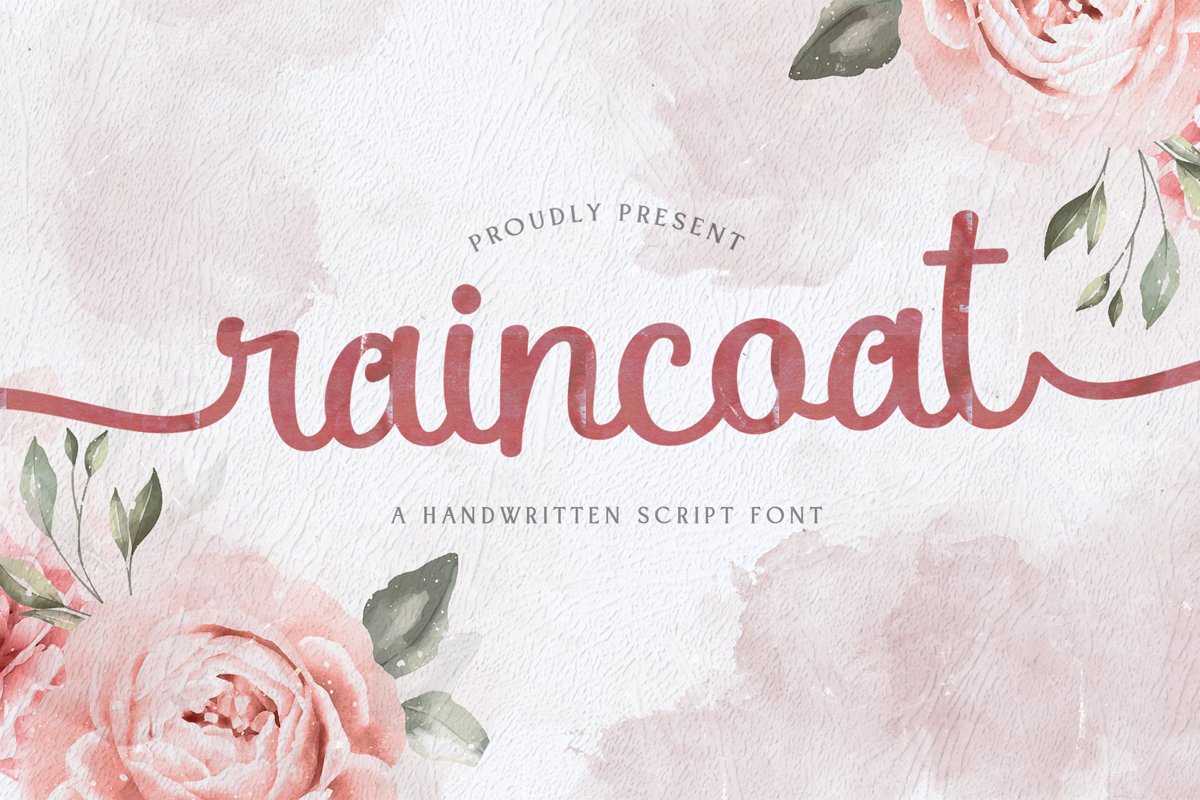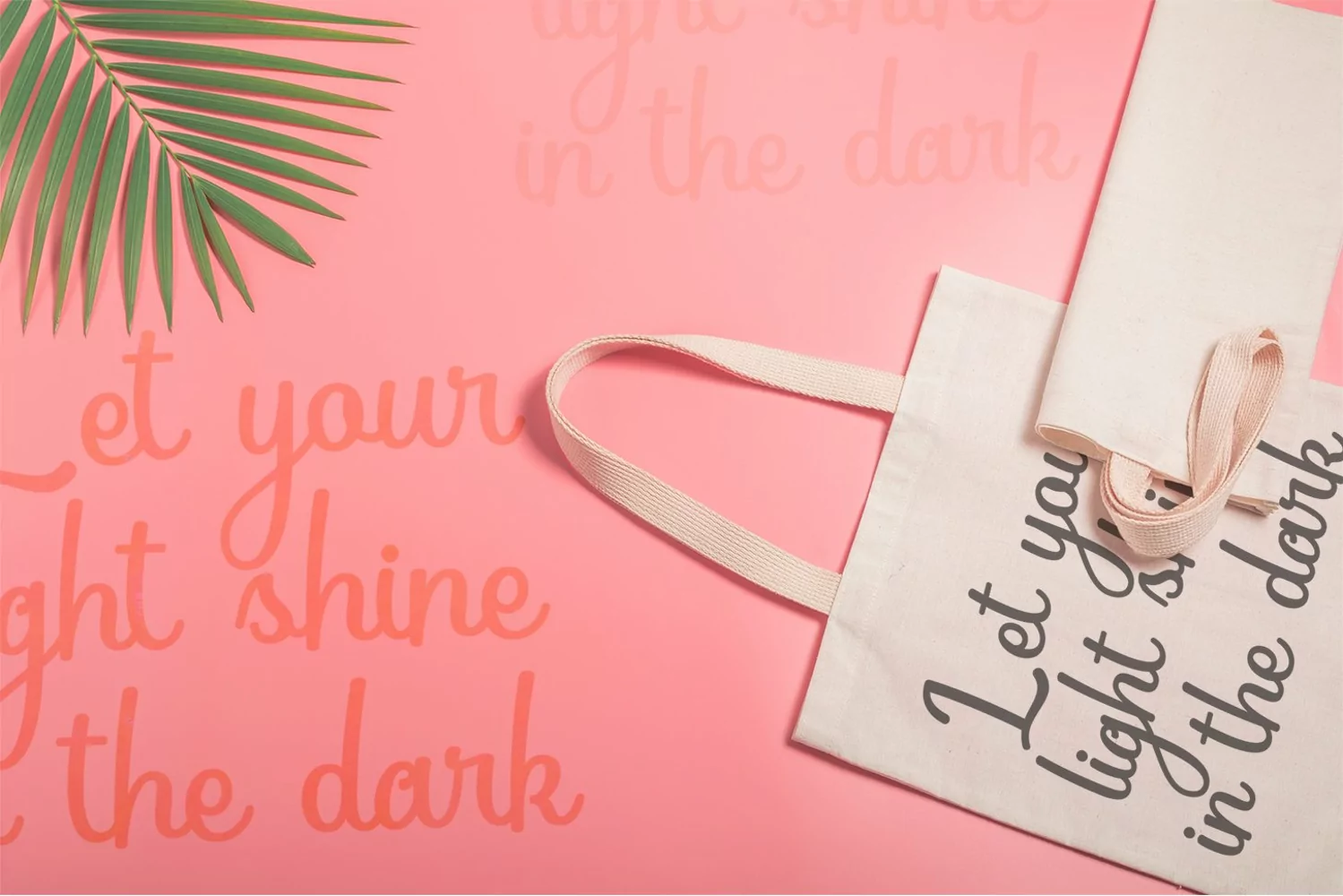
Raincoat is a Script typeface. Perfect for display, quotes, packaging, merchandise, t-shirt print, logo, logotype, branding, wedding needs, crafting needs, business card, signature and many more.